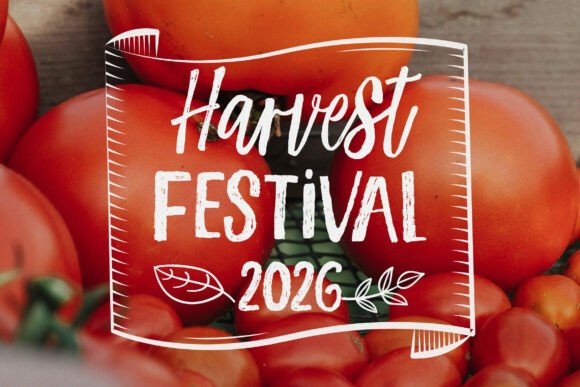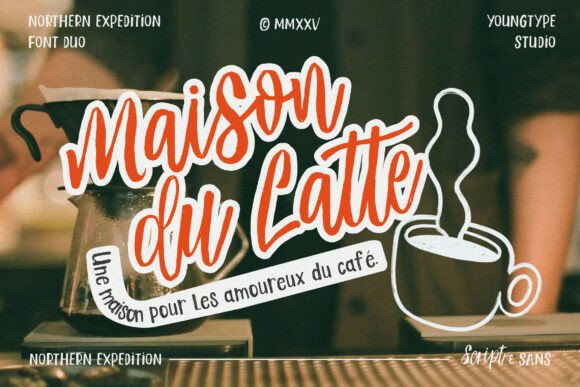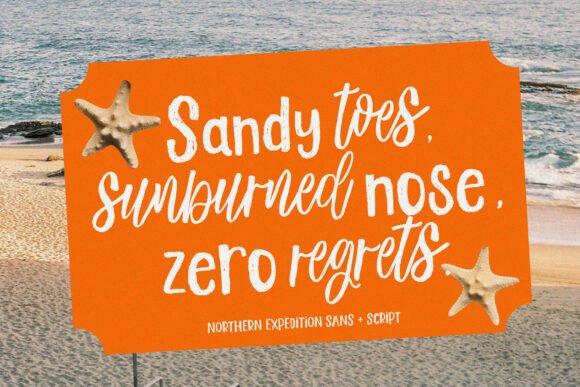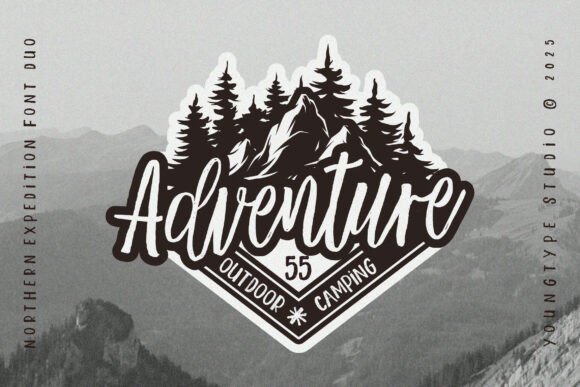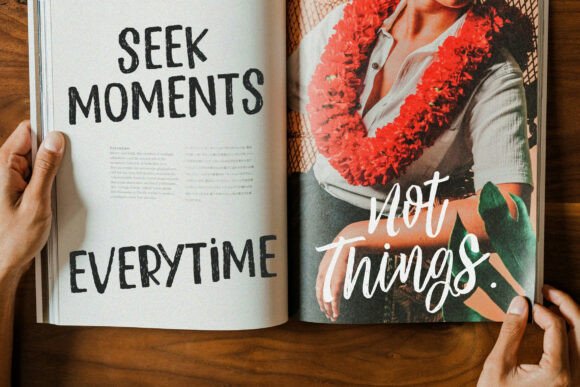
Unleash Your Creativity with Flowtastic Expedition Font
Are you tired of using the same old fonts for your creative projects? Look no further! Flowtastic Expedition Font is a game-changing font duo that combines bold, textured lettering with a smooth and natural script, bringing a cheerful and adventurous vibe to your designs. In this article, we’ll dive into the unique features of Flowtastic Expedition Font and explore how it can elevate your designs, whether you’re a designer, crafter, or DIY enthusiast.
A Handcrafted Style that Adds Warmth and Authenticity
Flowtastic Expedition Font is a hand-drawn font duo that boasts a unique, handcrafted style. The bold, textured lettering is paired with a smooth and natural script, creating a delightful contrast that adds warmth and authenticity to your designs. This font duo is perfect for designers and crafters who want to infuse their projects with a personal touch. With Flowtastic Expedition Font, every design feels personal and full of character, making it ideal for creative projects such as posters, branding, packaging, invitations, and social media designs.
Flowtastic Expedition Font is versatile and can be used for a wide range of creative projects. Whether you’re designing a poster, creating a brand identity, or crafting a social media graphic, this font duo is sure to make your design stand out. The bold, textured lettering is perfect for headlines and titles, while the smooth script is ideal for body text and descriptions. The font duo’s cheerful and adventurous vibe makes it perfect for designs that require a playful touch.
Key Features of Flowtastic Expedition Font
- Hand-drawn font duo: Flowtastic Expedition Font is a unique, hand-drawn font duo that combines bold, textured lettering with a smooth and natural script.
- Bold and smooth styles: The font duo features two distinct styles: bold, textured lettering and smooth script.
- Cheerful and adventurous vibe: Flowtastic Expedition Font brings a cheerful and adventurous vibe to your designs, making it perfect for creative projects.
- Handcrafted style: The font duo’s handcrafted style adds warmth and authenticity to your designs.
- Perfect for creative projects: Flowtastic Expedition Font is ideal for posters, branding, packaging, invitations, and social media designs.
Tips for Using Flowtastic Expedition Font
To get the most out of Flowtastic Expedition Font, here are some tips to keep in mind:
- Mix and match: Experiment with combining the bold, textured lettering with the smooth script to create visually appealing designs.
- Play with colors: Flowtastic Expedition Font looks great in bold, bright colors. Don’t be afraid to experiment with different color combinations.
- Add textures and patterns: The font duo’s handcrafted style lends itself well to textures and patterns. Add some extra visual interest to your designs by incorporating textures and patterns.
| Font Name | Flowtastic Expedition Font |
| Author | Youngtype |
Flowtastic Expedition Font is a unique and versatile font duo that’s perfect for designers, crafters, and DIY enthusiasts. Its handcrafted style, bold and smooth styles, and cheerful and adventurous vibe make it ideal for creative projects such as posters, branding, packaging, invitations, and social media designs. With Flowtastic Expedition Font, you can add a personal touch to your designs and make them stand out from the crowd.